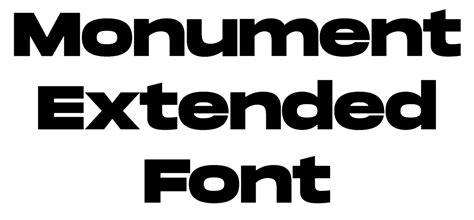
Monument Extended Ultrabold Font. Web this extended font can be used for bold editorial statements, graphic heavy prints or just as a simple logo. Web monument extended is a powerful quality extended typeface with great versatility.
Web monument extended is a powerful quality extended typeface with great versatility. Web this extended font can be used for bold editorial statements, graphic heavy prints or just as a simple logo.
Web monument extended is a powerful quality extended typeface with great versatility. Web monument extended is a powerful quality extended typeface with great versatility. Web this extended font can be used for bold editorial statements, graphic heavy prints or just as a simple logo.